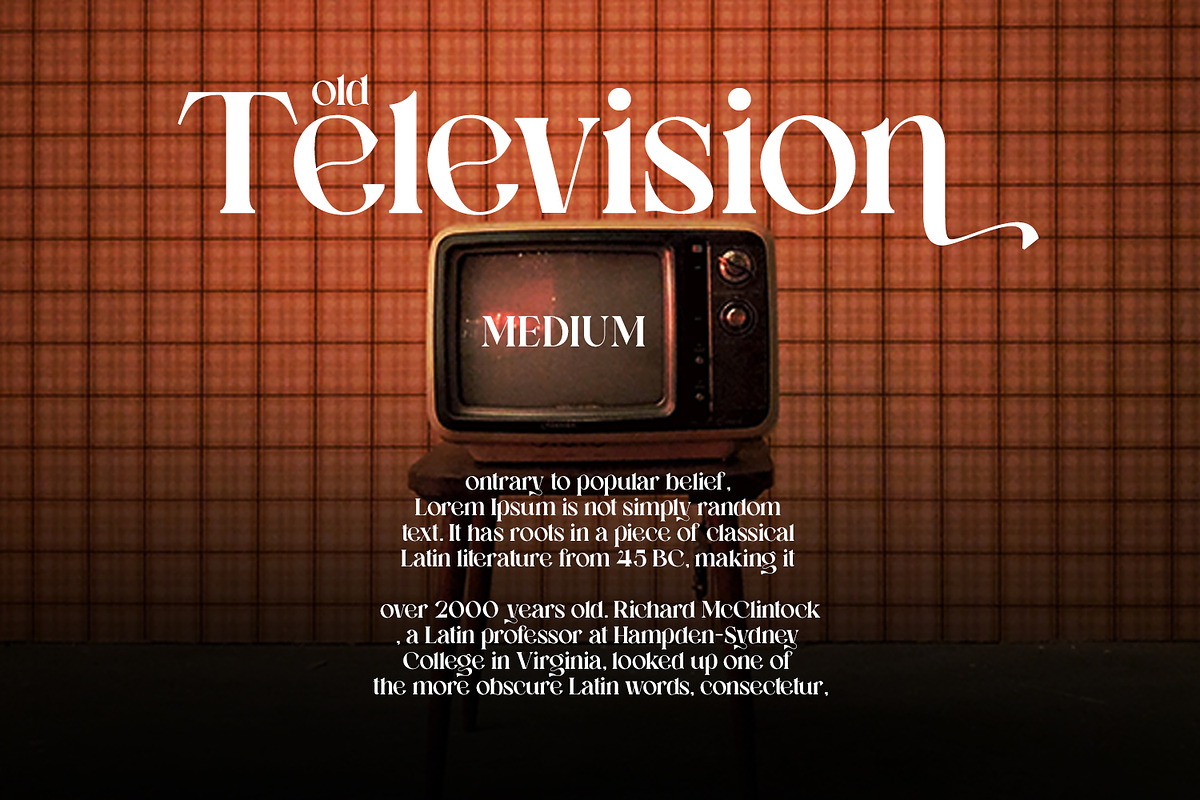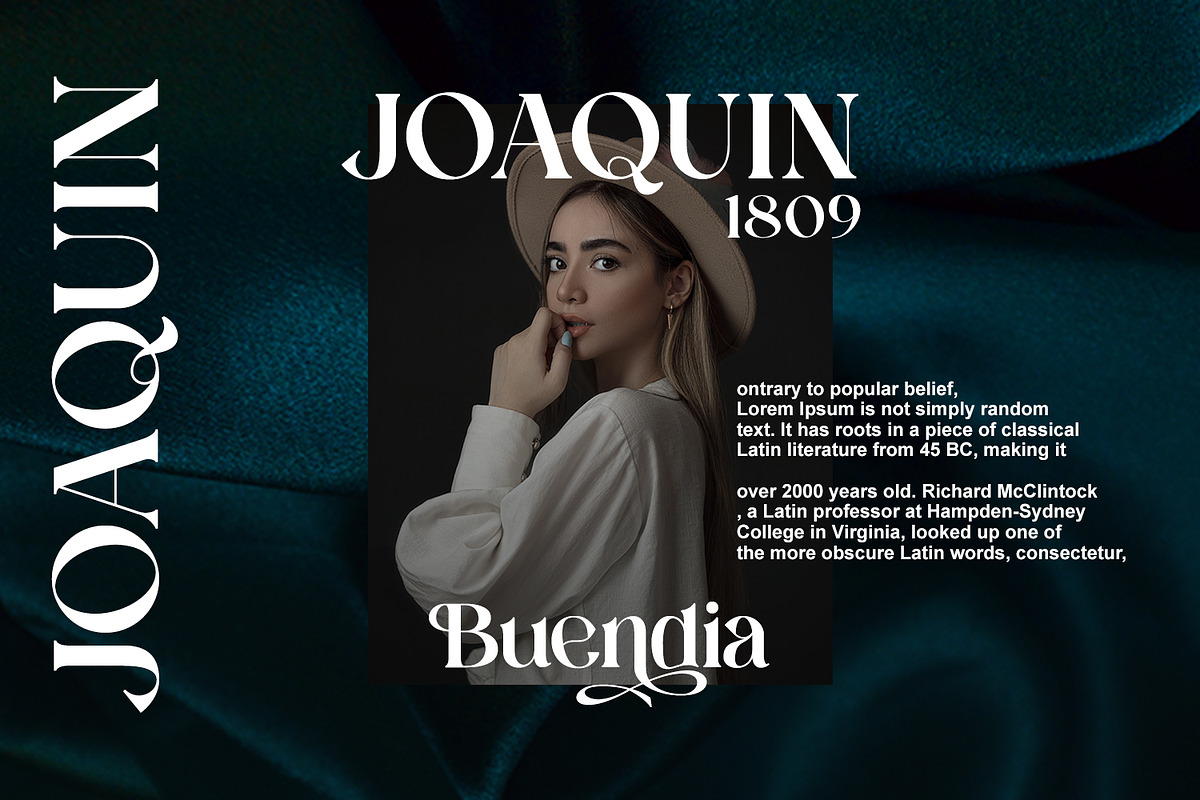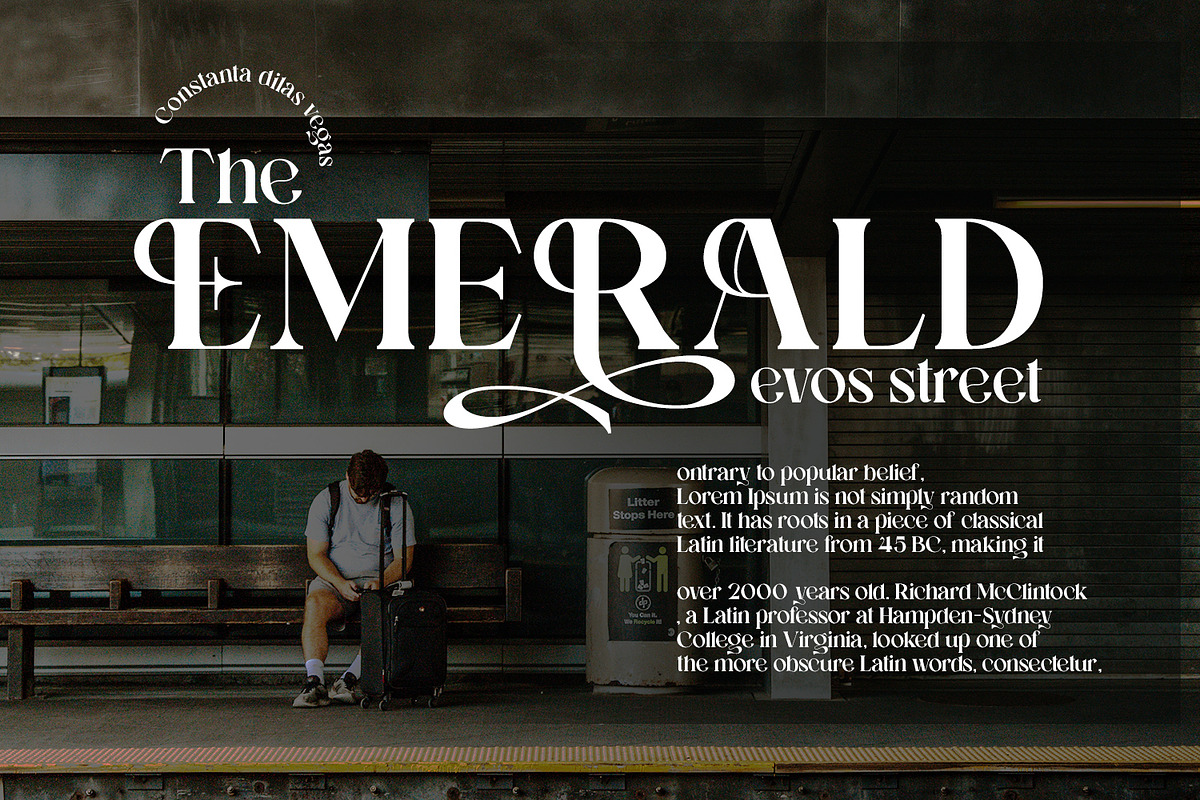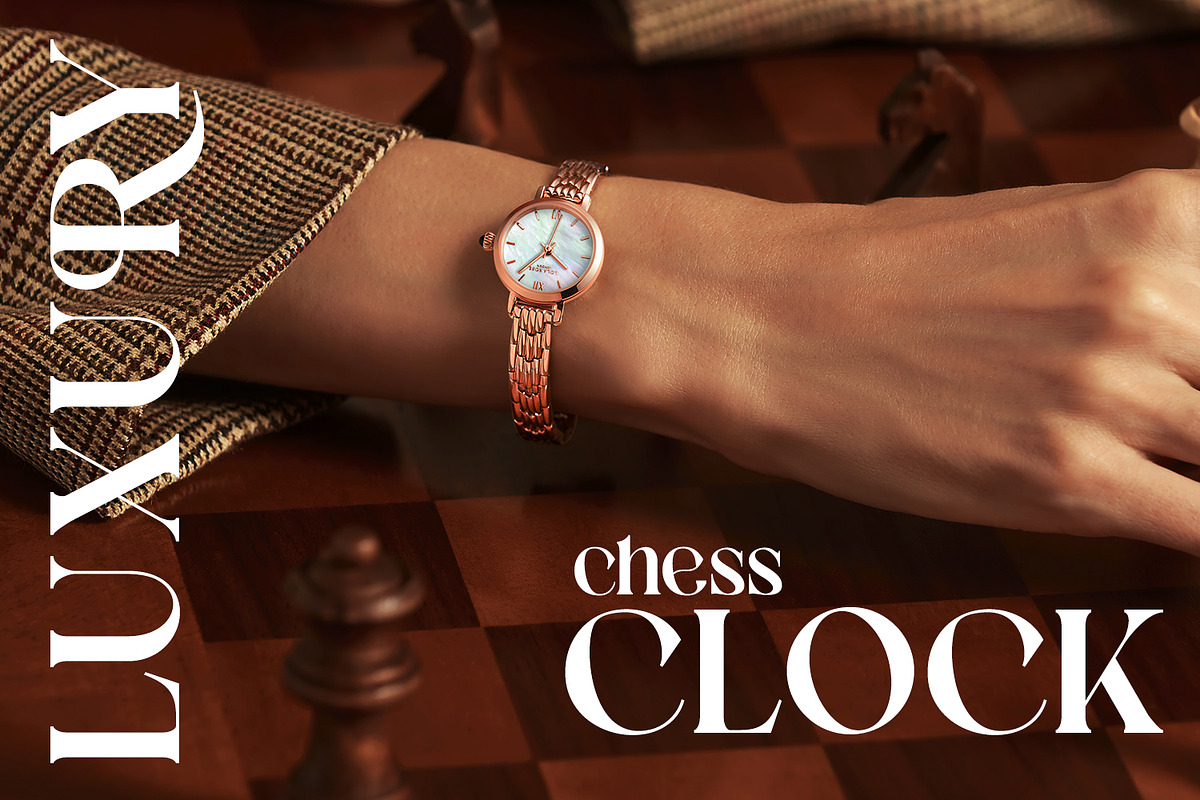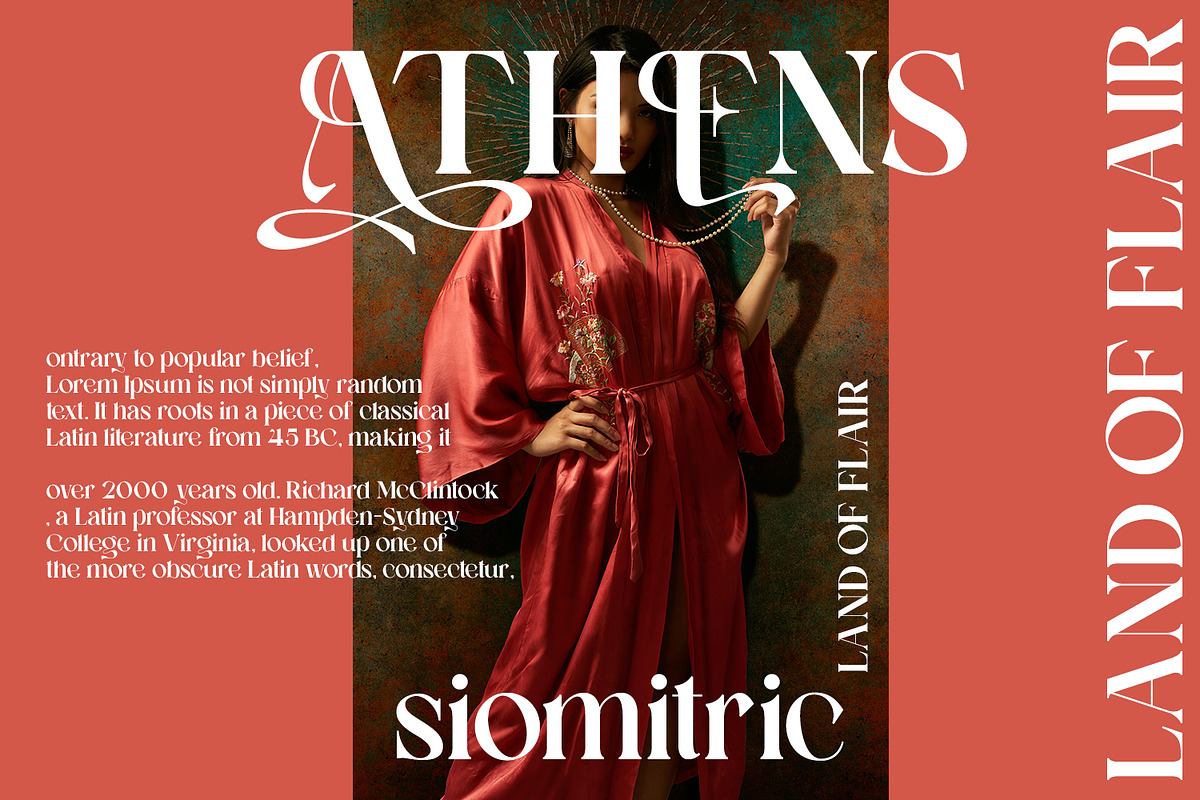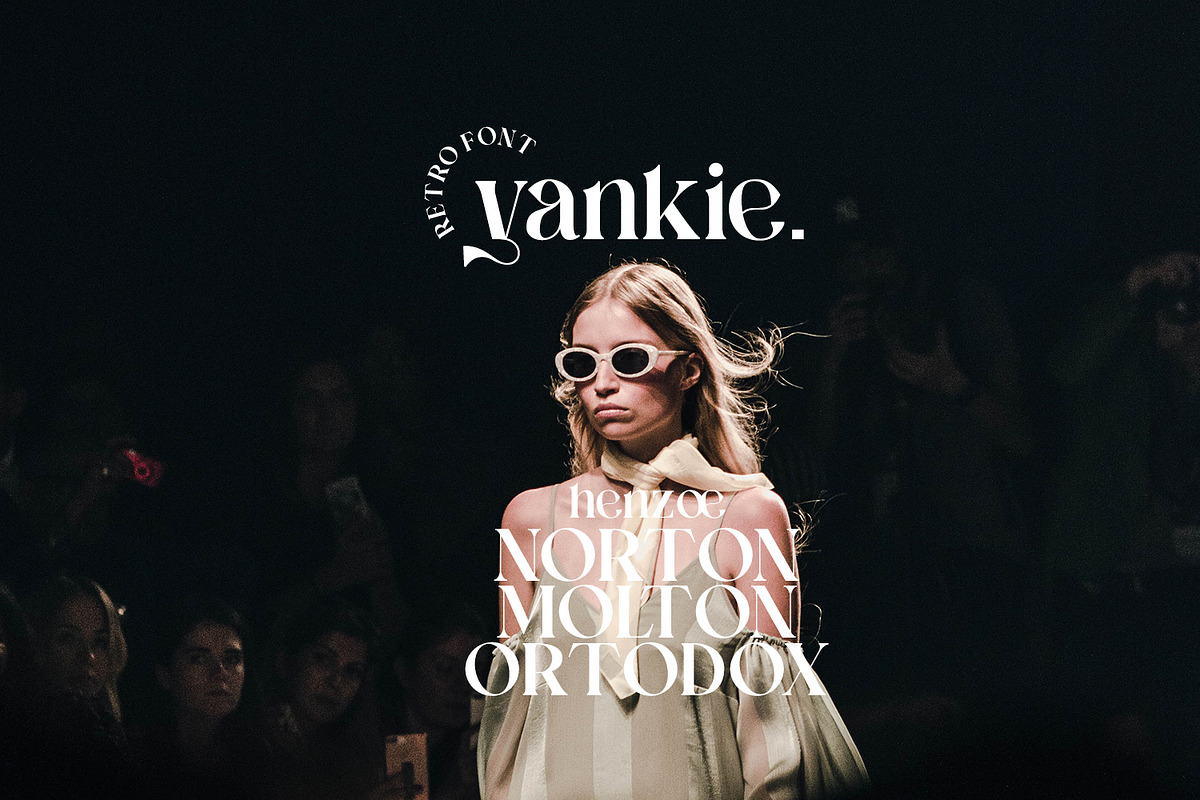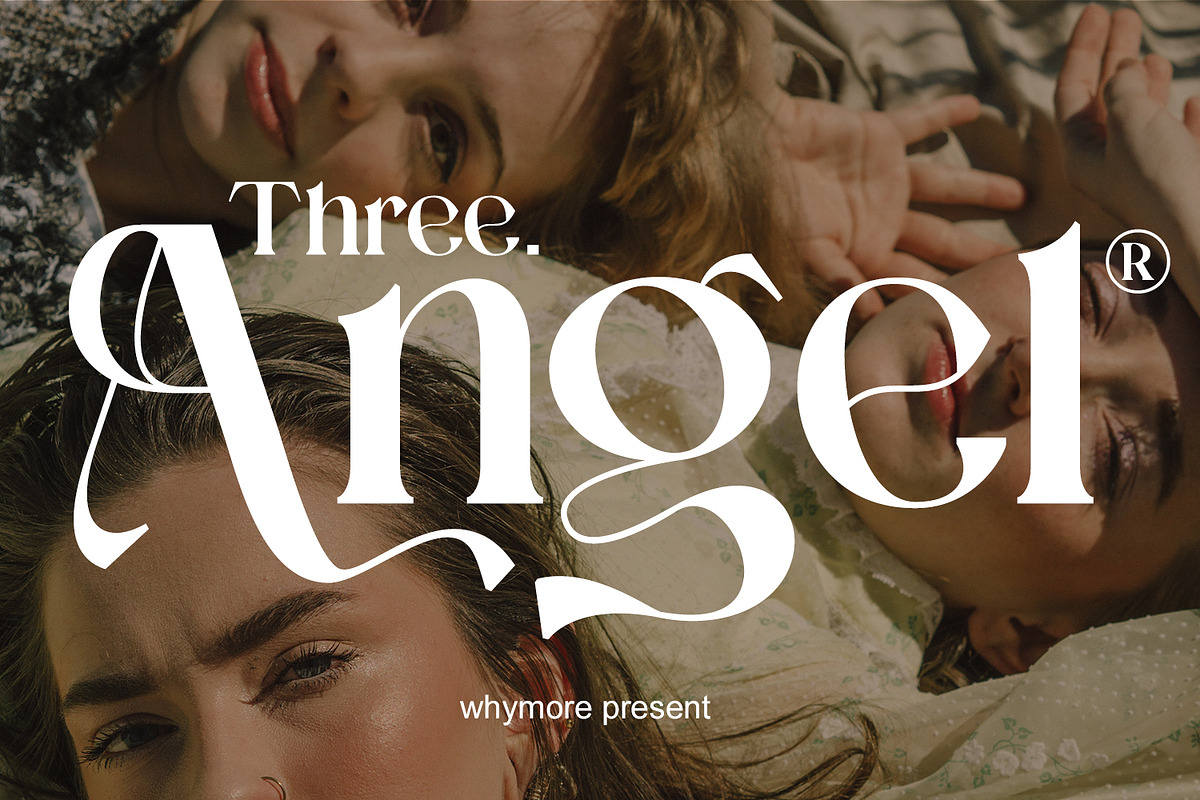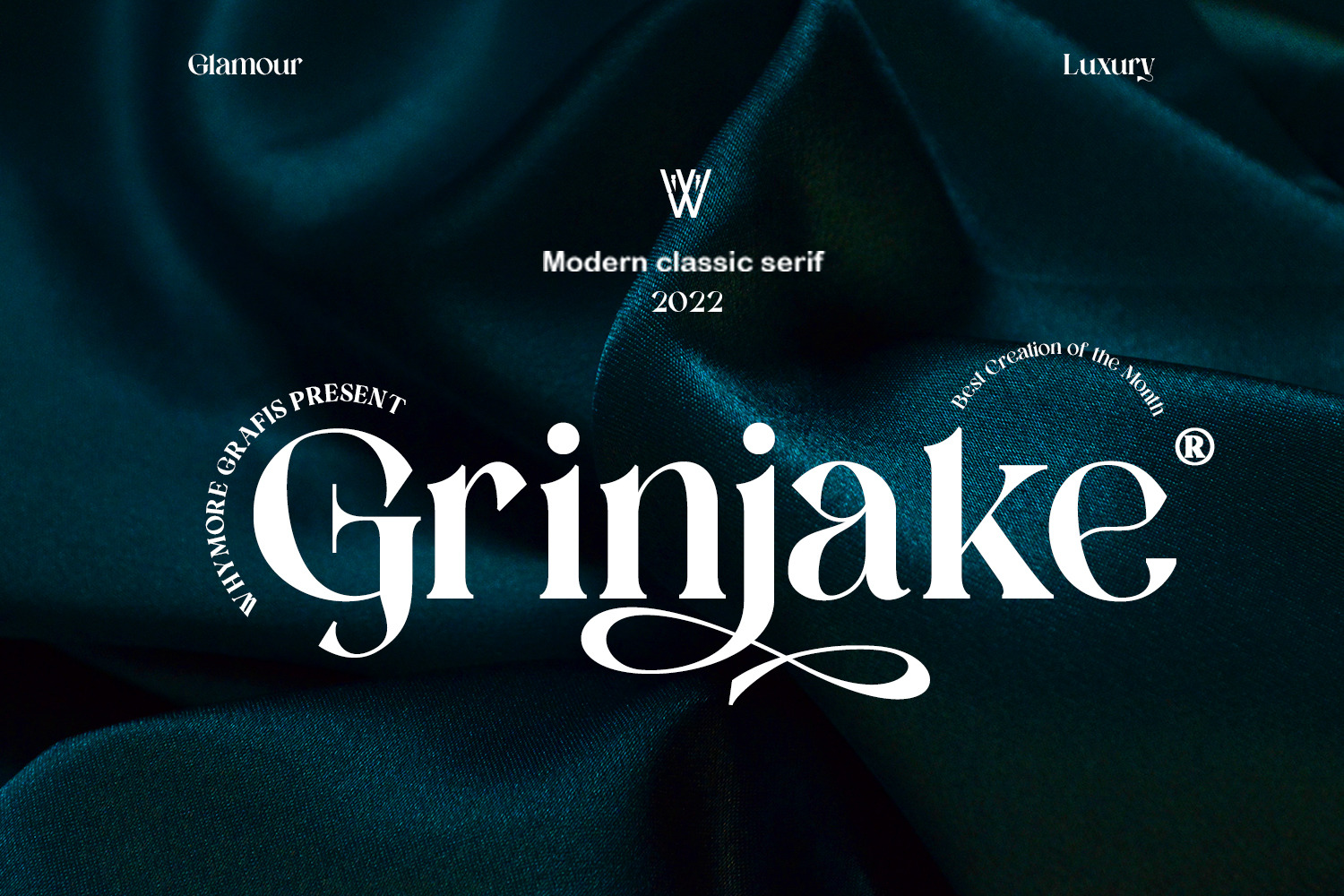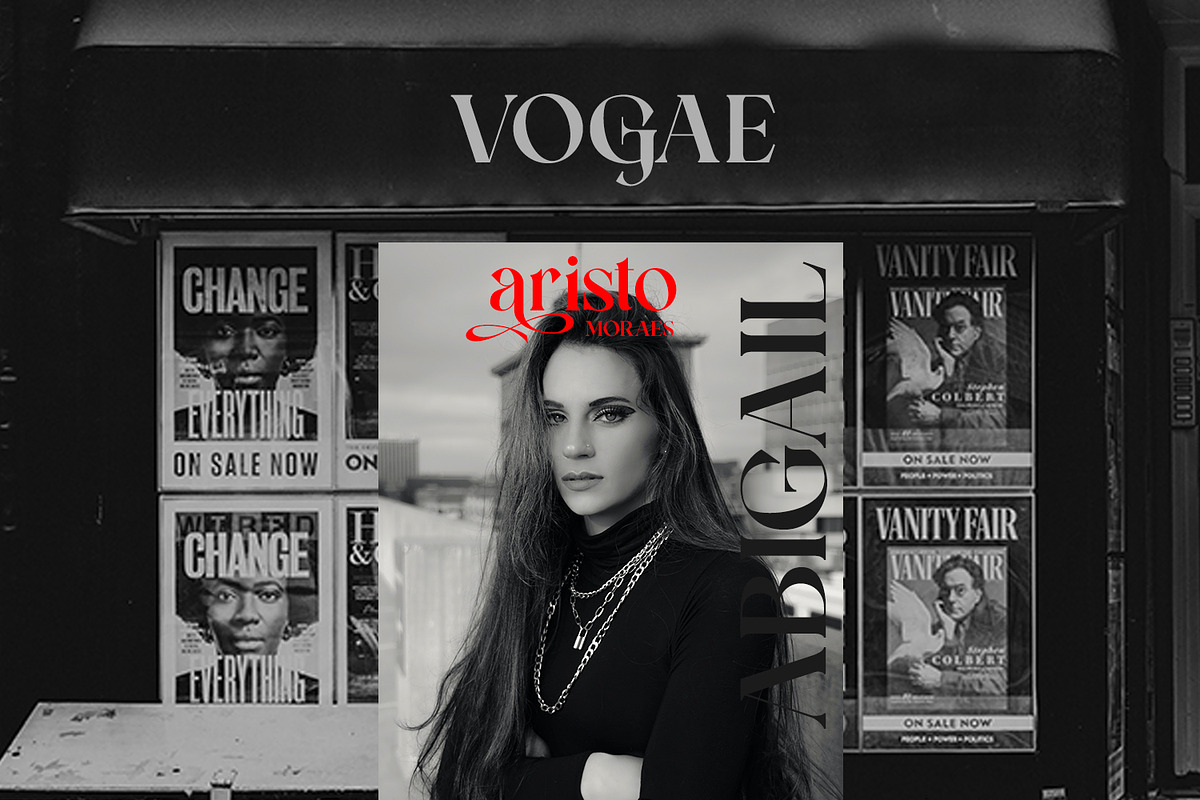
Grinjake Font | Classic Serif Font
The Grinjake Font is a timeless serif typeface that exudes elegance and refinement. With its classic letterforms and graceful curves, this font brings a sense of tradition and sophistication to any design project. Whether you’re creating invitations, branding materials, or editorial layouts, the Grinjake Font adds a touch of timeless beauty that captivates the viewer. Its versatile nature makes it suitable for both formal and casual applications, ensuring your designs stand out with a touch of classic charm.